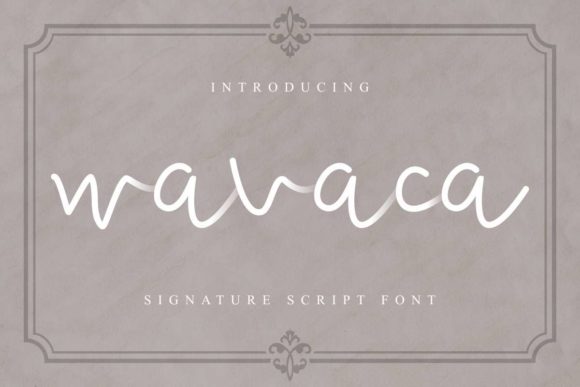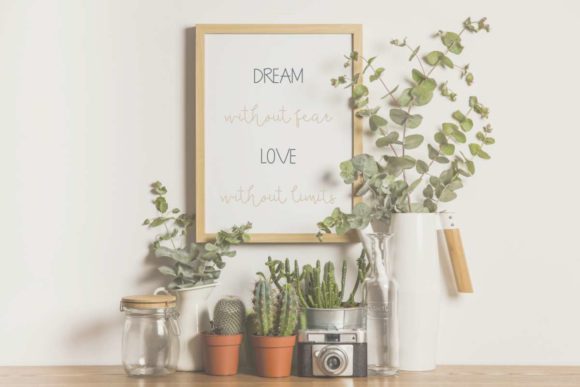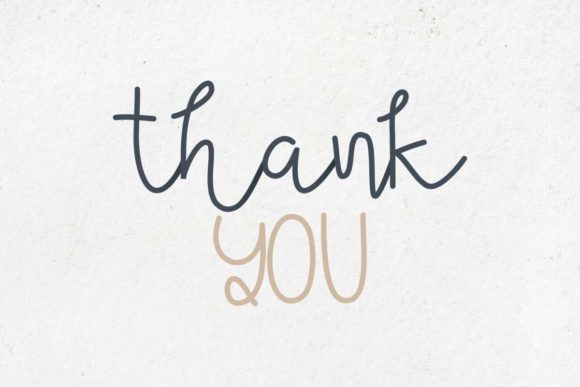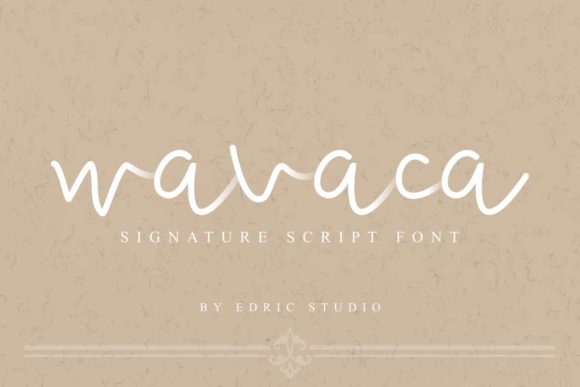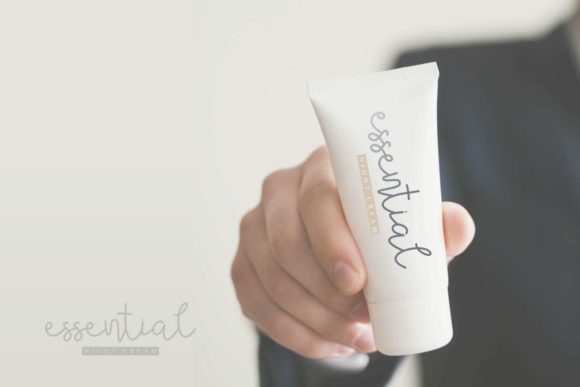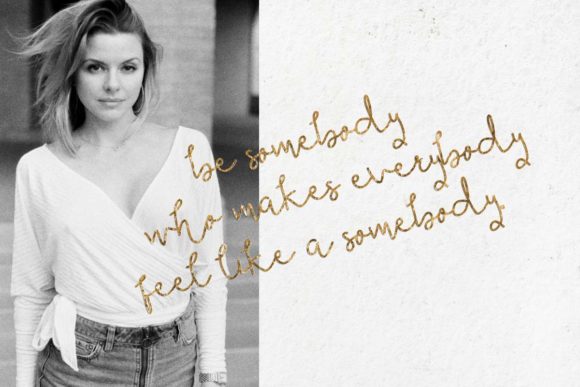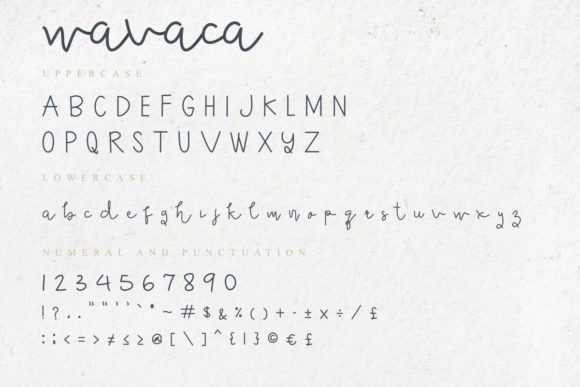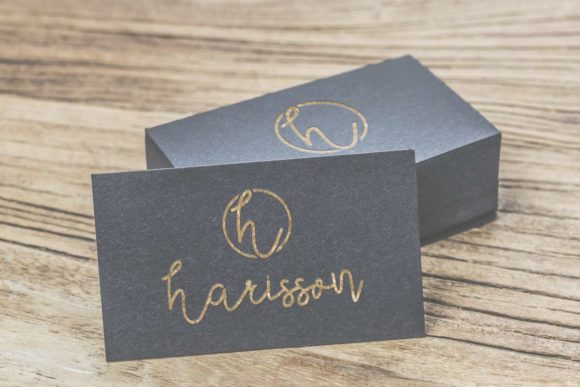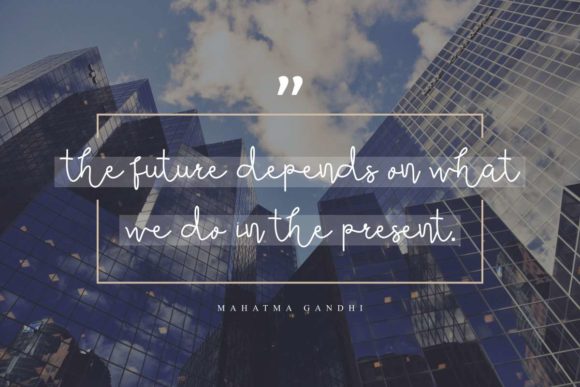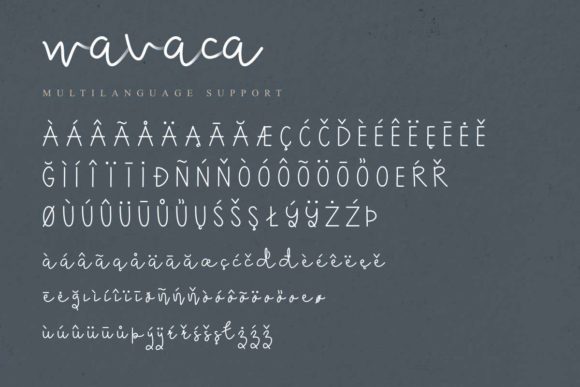
Wavaca Font
About Wavaca Font
Wavaca is a distinct, elegant script that blends traditional influences into a contemporary aesthetic. Its well balanced Latin details contain distinctive contrasts. Use Wavaca to achieve an exquisite, yet subtle look and maximum versatility.